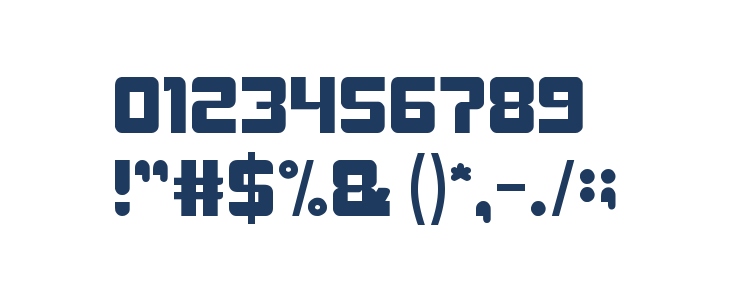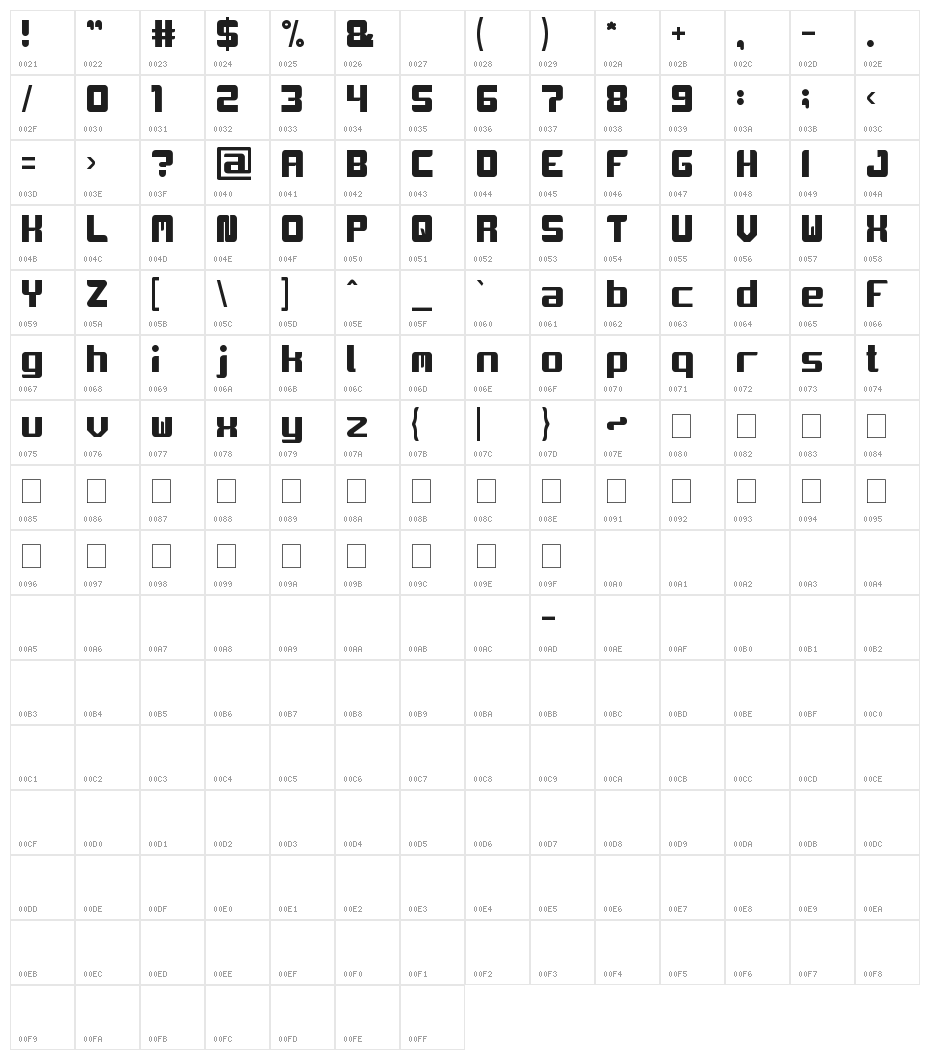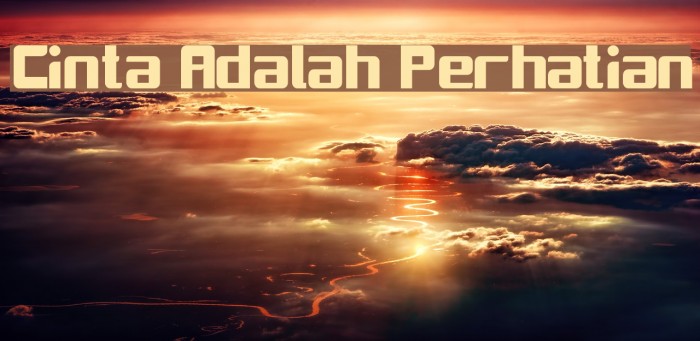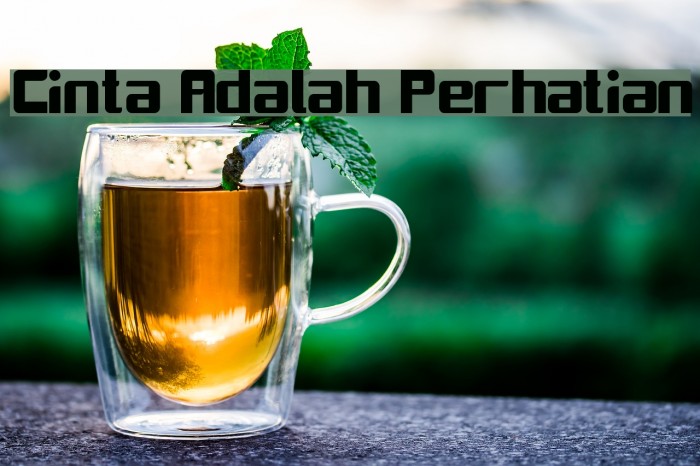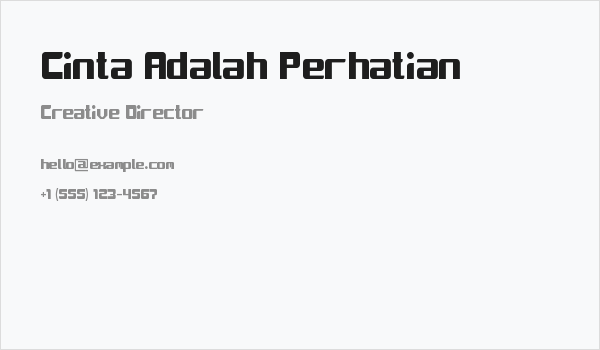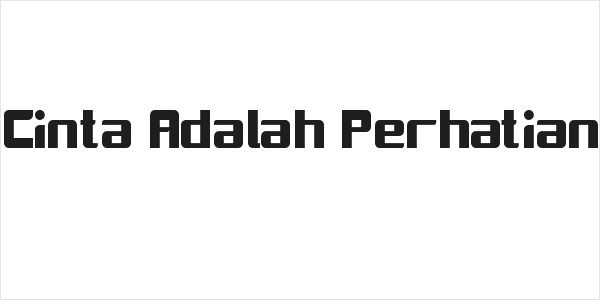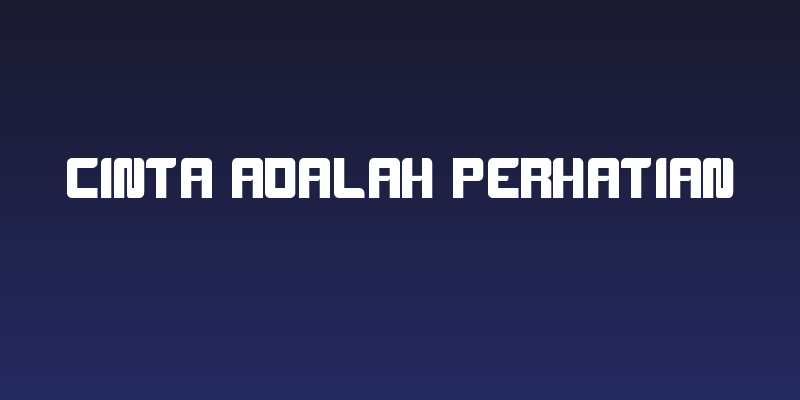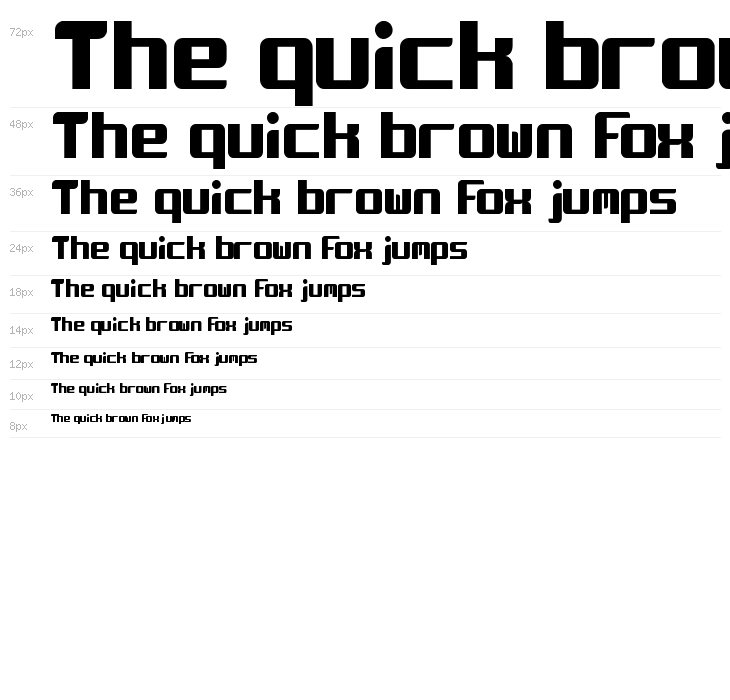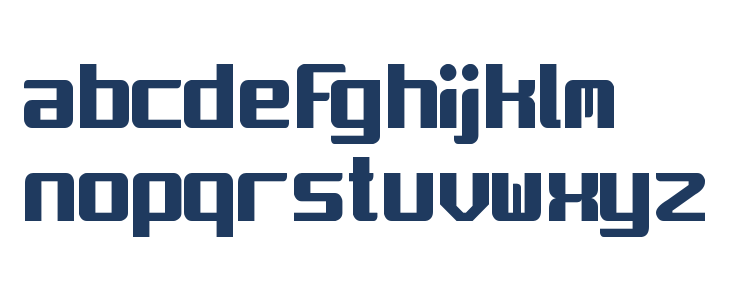
Cinta Adalah Perhatian Font
Cinta Adalah Perhatian Description
This font features a bold and geometric design with a strong, modern aesthetic. The characters are blocky and robust, with a uniform thickness that gives them a powerful presence. The uppercase and lowercase letters maintain a consistent style, with rounded edges that soften the overall look. The numerals are equally bold, ensuring readability and impact. Special characters are designed to match the boldness of the letters, making this font suitable for attention-grabbing headlines and titles. The overall style is modern and assertive, ideal for projects that require a strong visual statement.